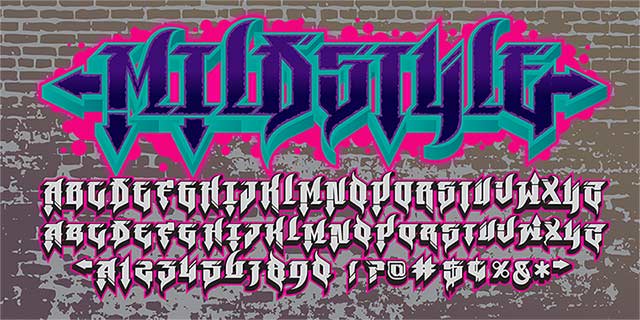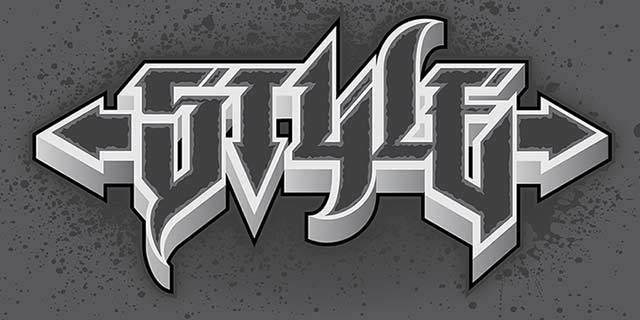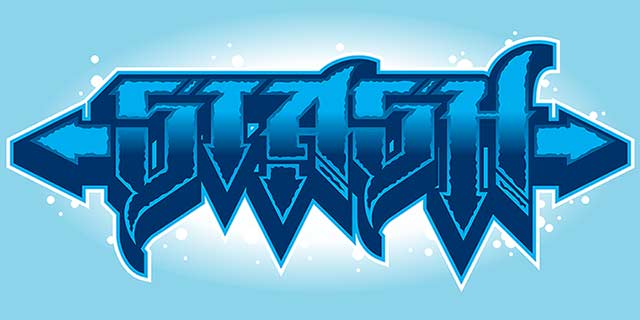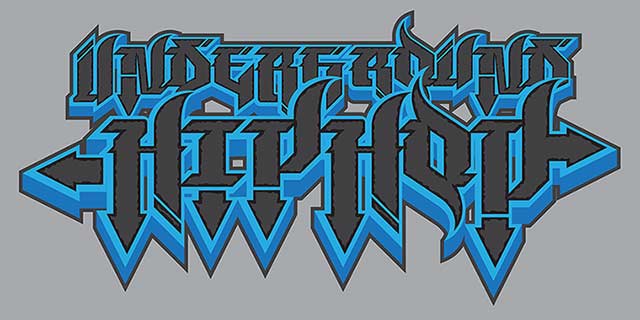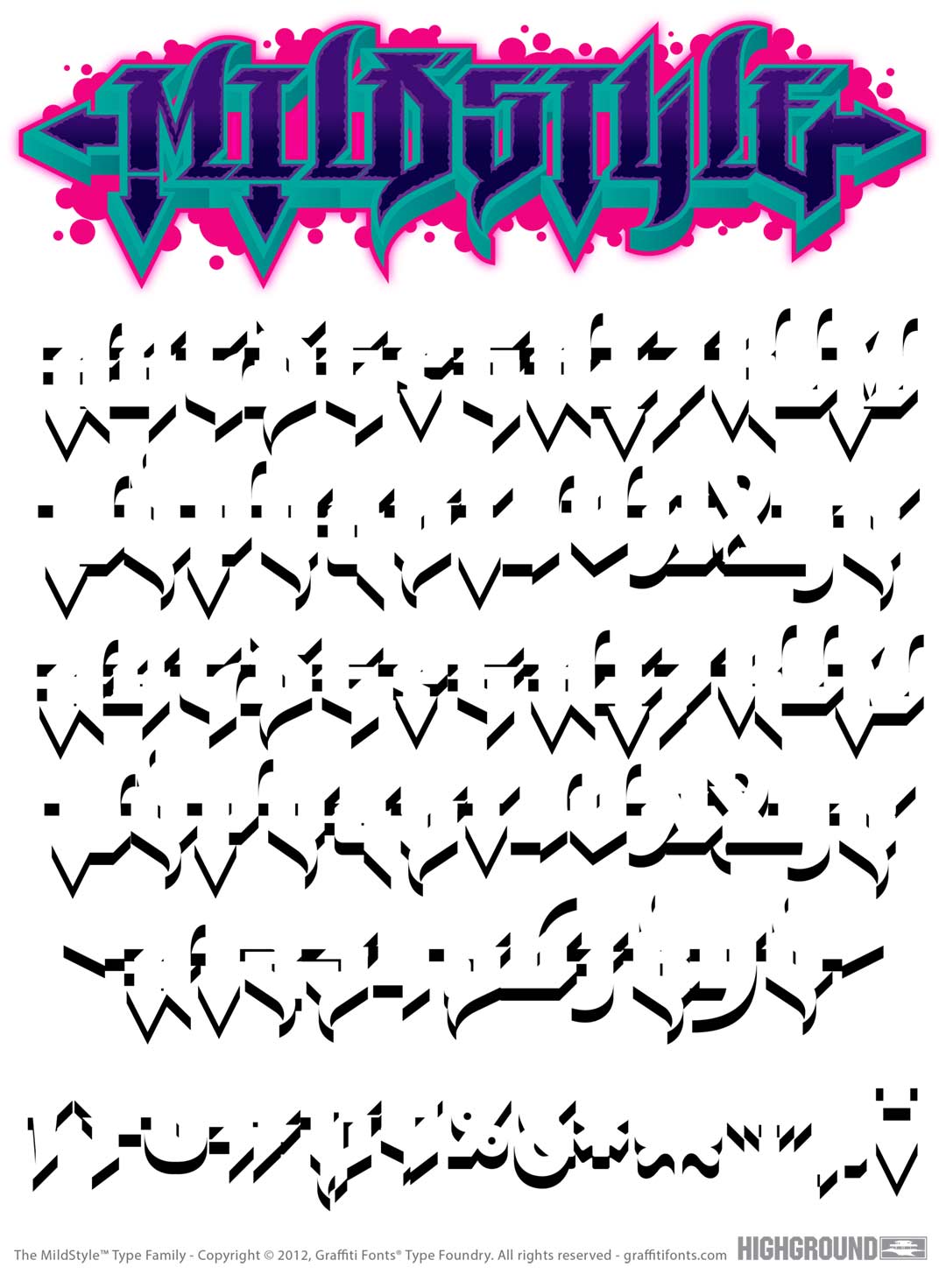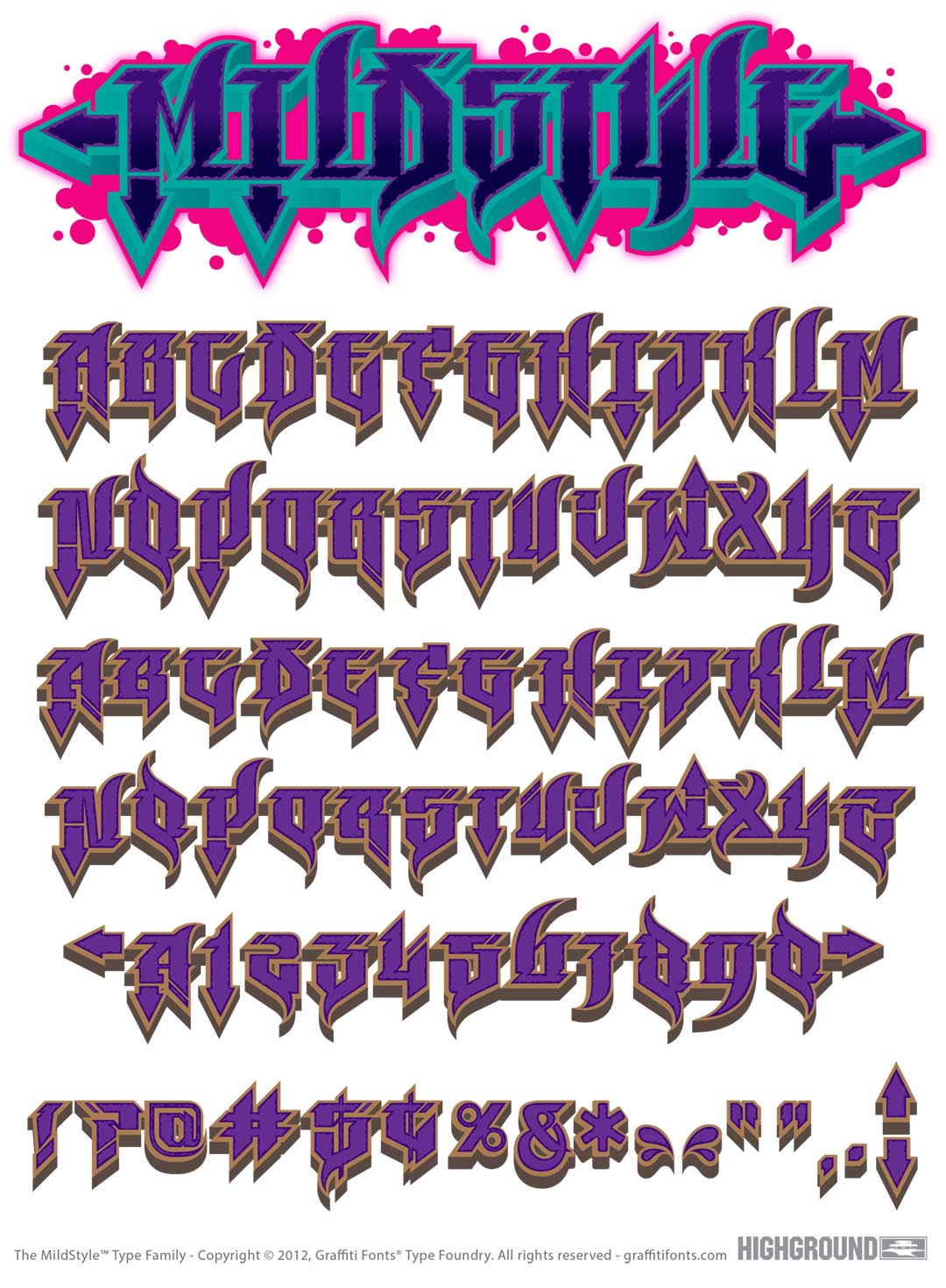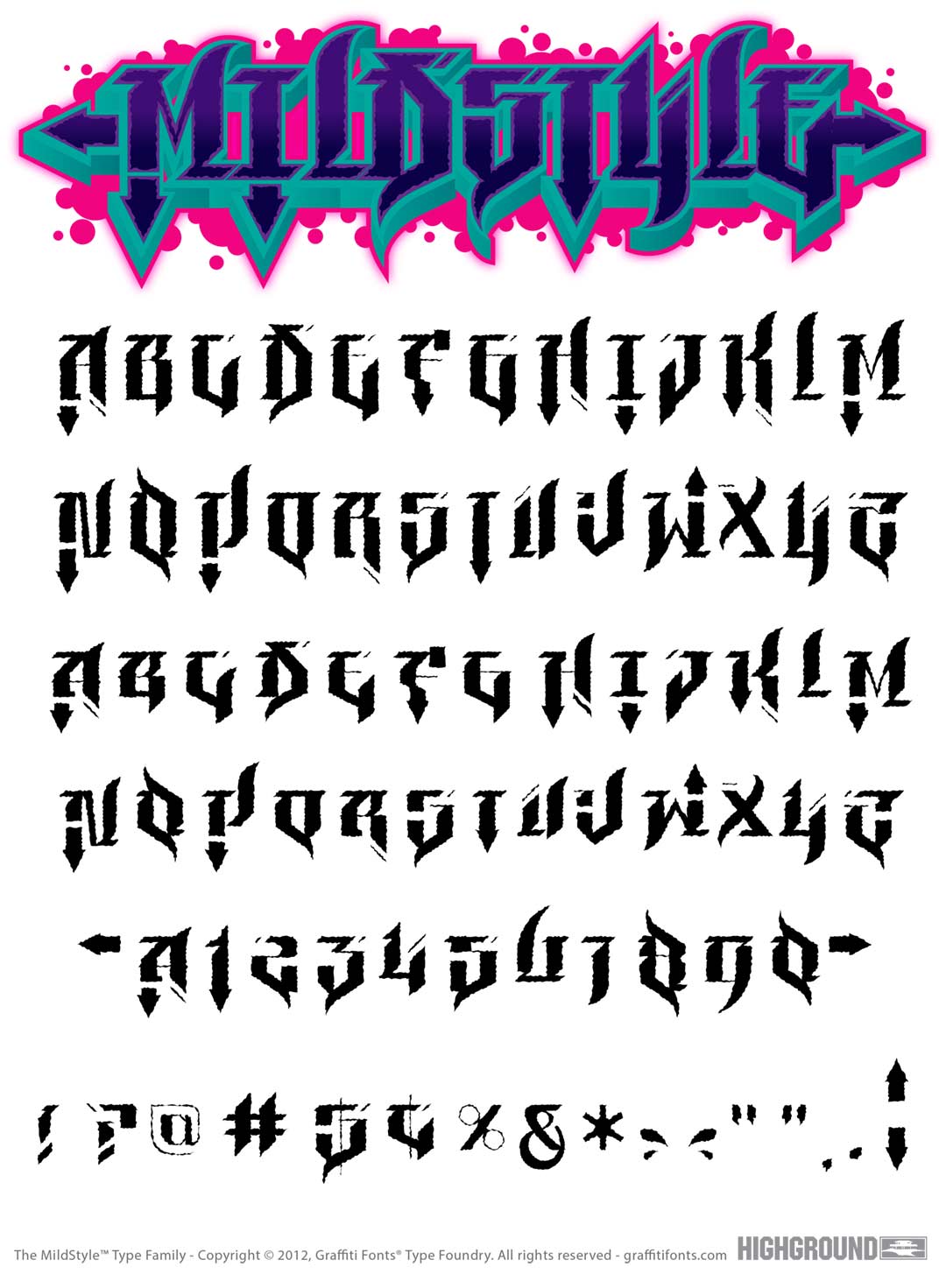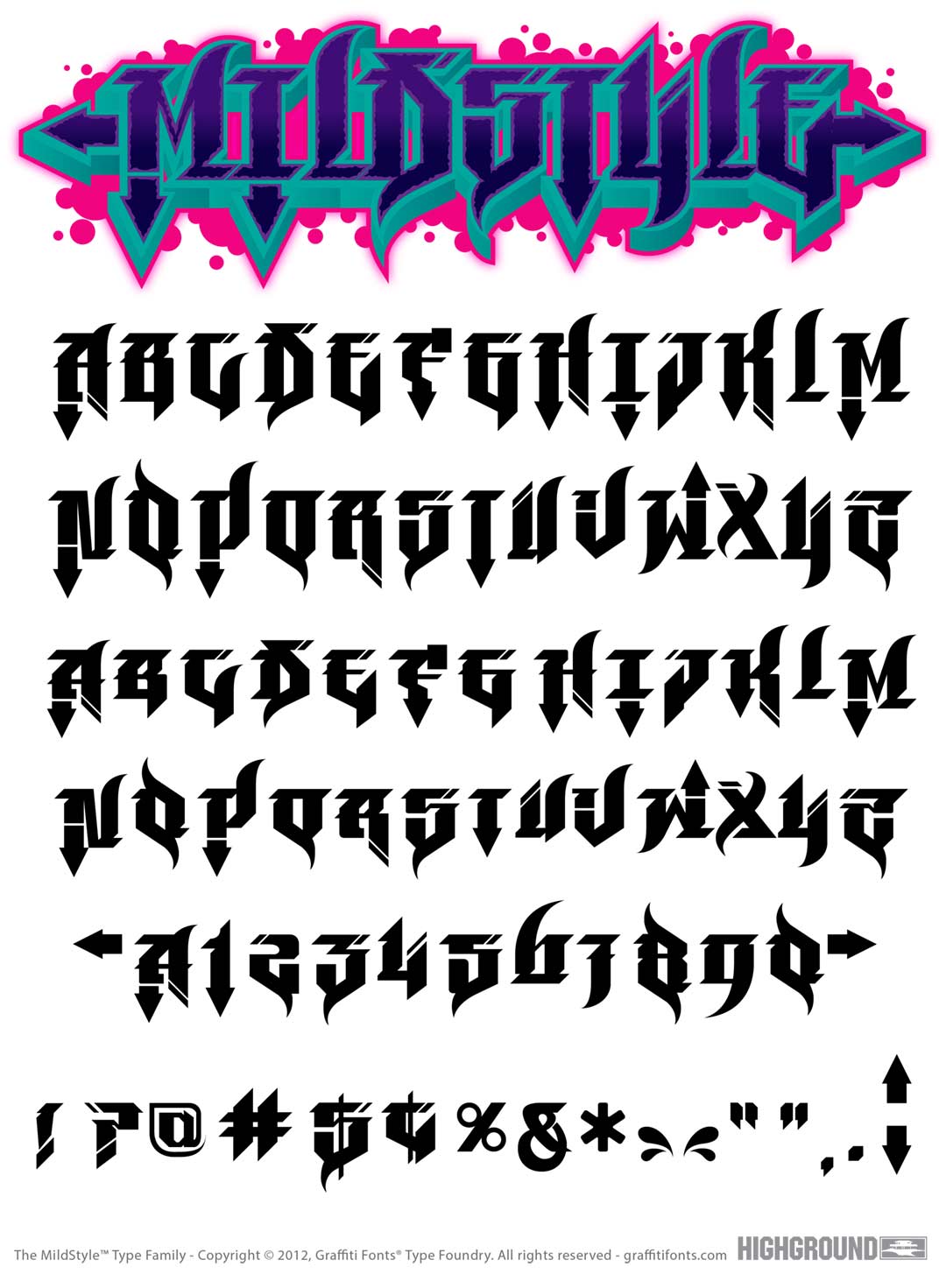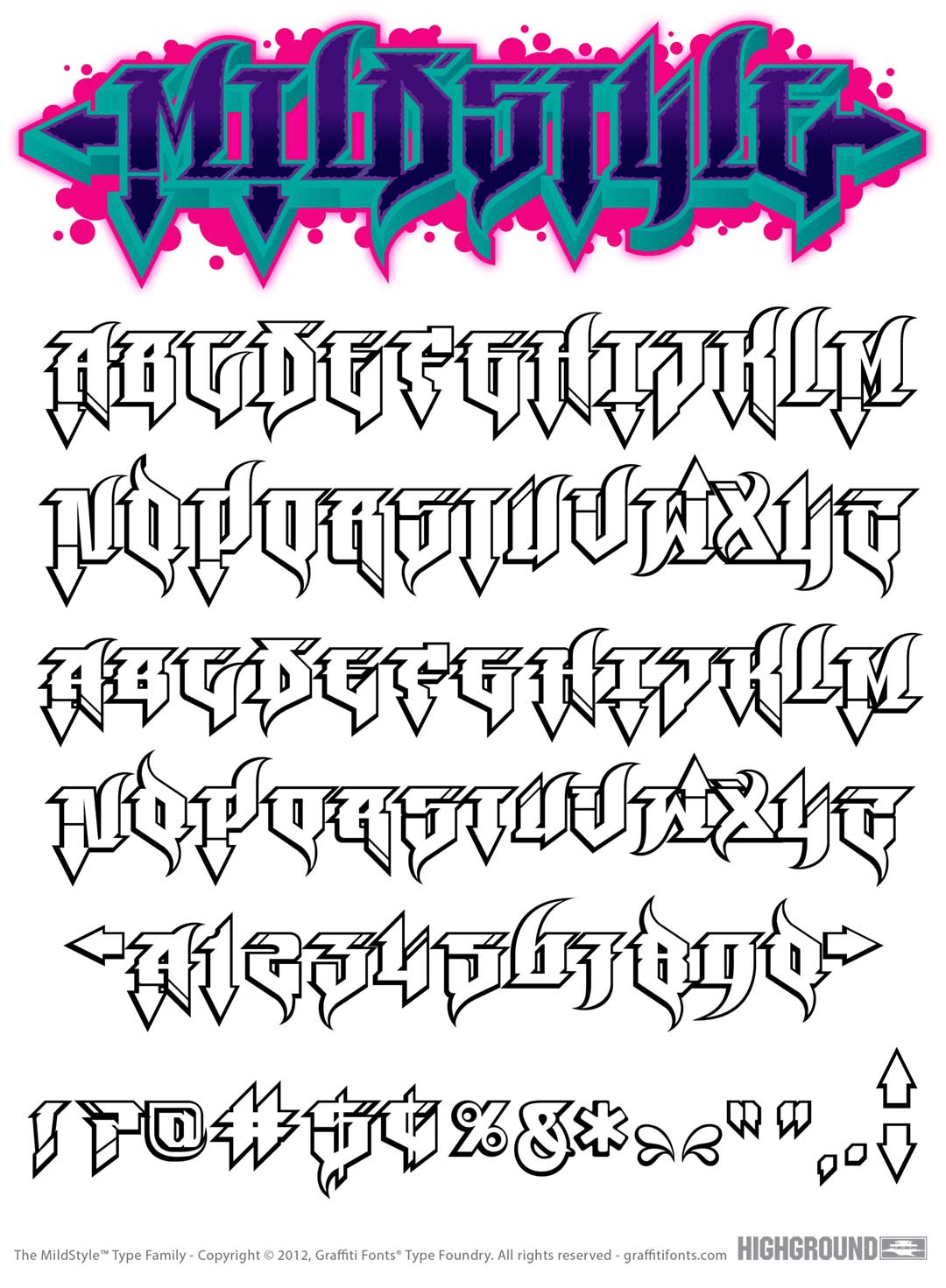
MildStyle Font
MildStyle Graffiti Alphabet
MildStyle Graffiti Font Family
MildStyle is a simplistic take on a Graffiti Wildstyle presented in the form of a layered type system. The family also includes a color SVG style made up of all 4 styles from the layered family. MildStyle was first designed in 2012 & revised in 2019.